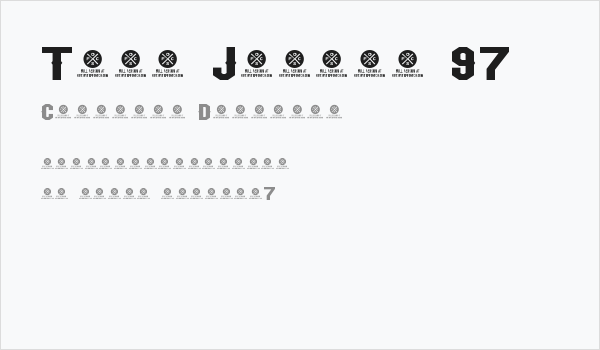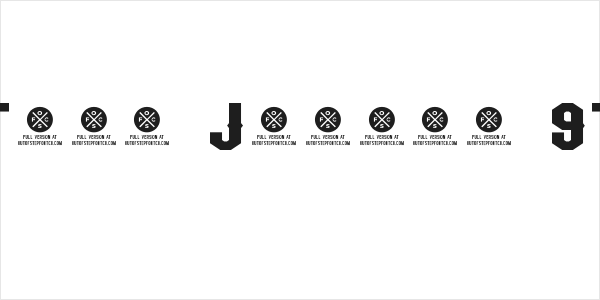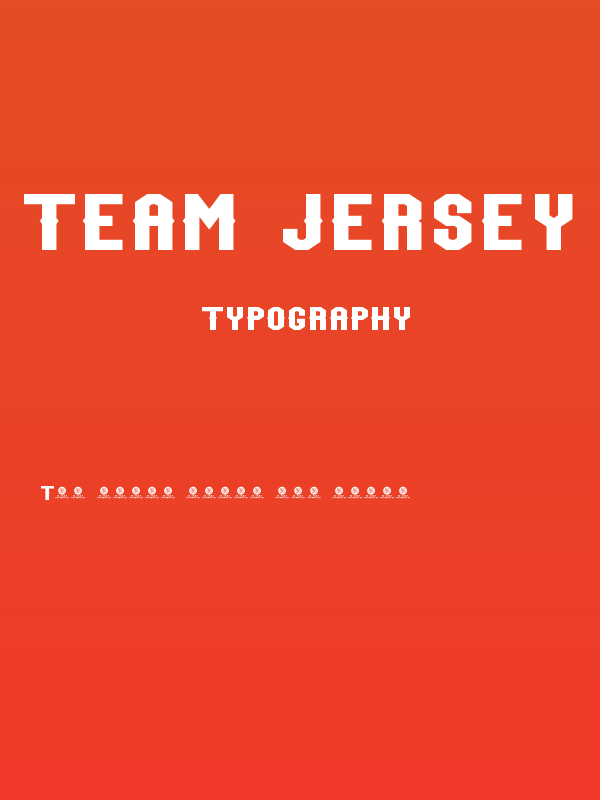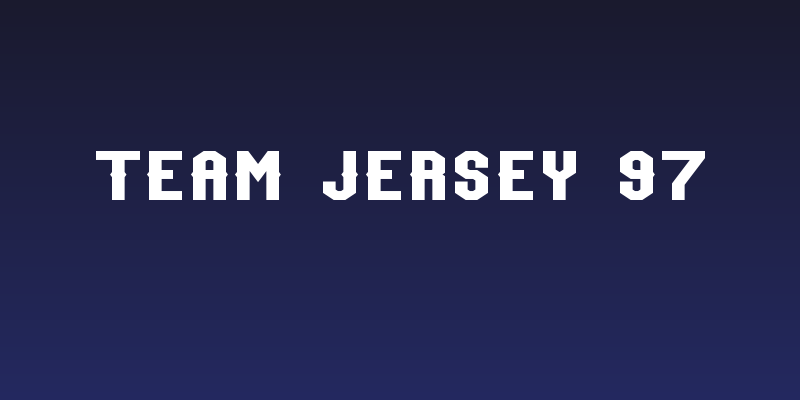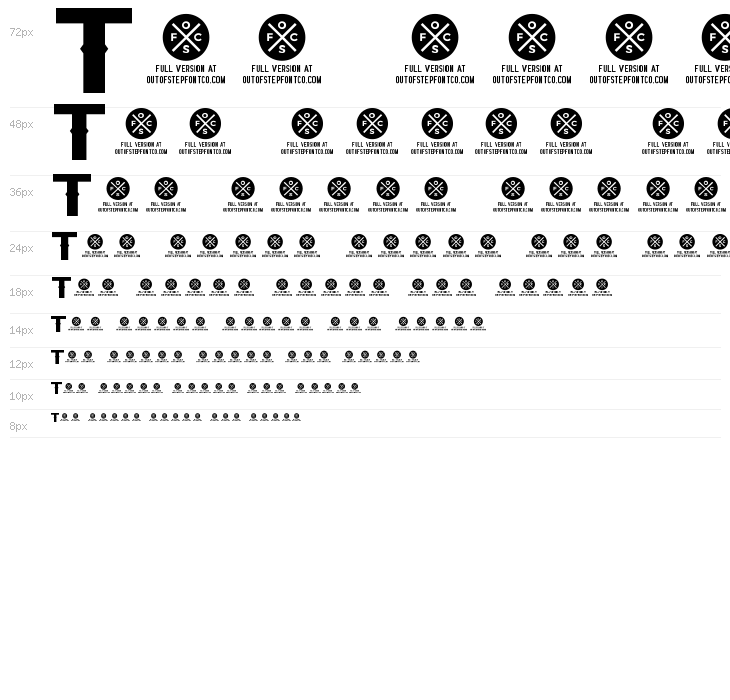
Team Jersey 97 Font
Team Jersey 97 Description
This font features a bold, athletic style reminiscent of classic sports jerseys. The characters are blocky and robust, with sharp angles and a strong presence. Each letter and number is designed with a uniform width, giving the font a cohesive and structured appearance. The uppercase letters are particularly striking, with a geometric design that emphasizes strength and stability. The numbers maintain the same bold characteristics, making them ideal for team uniforms and sports-related designs. This font's distinctive style is perfect for projects that require a sense of energy and dynamism.